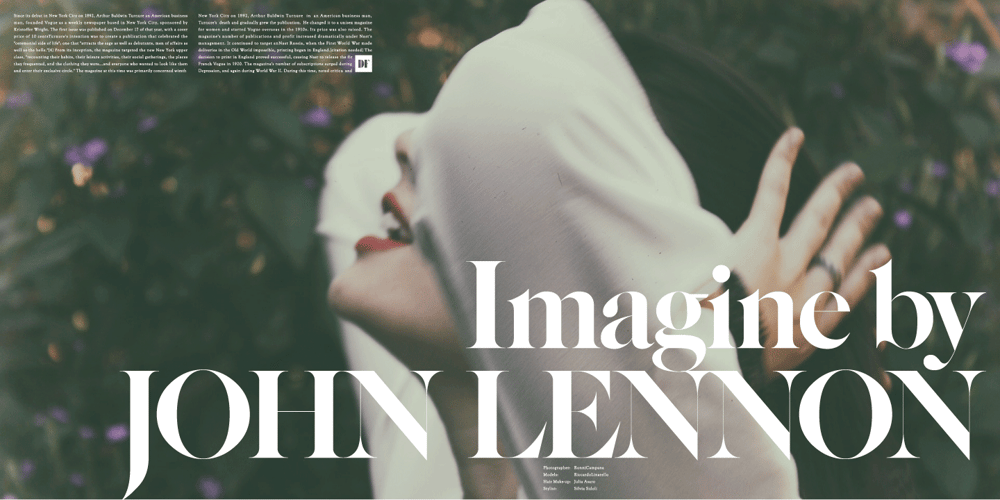
Gara Gara
Gara Gara font
Gara Gara Font Family was designed by Shin Oka and published by Daylight Fonts. Gara Gara contains 1 styles and family package options. This is a new generation of Garamond.This delicate and powerful Roman will captivate you and those who have seen your typography!